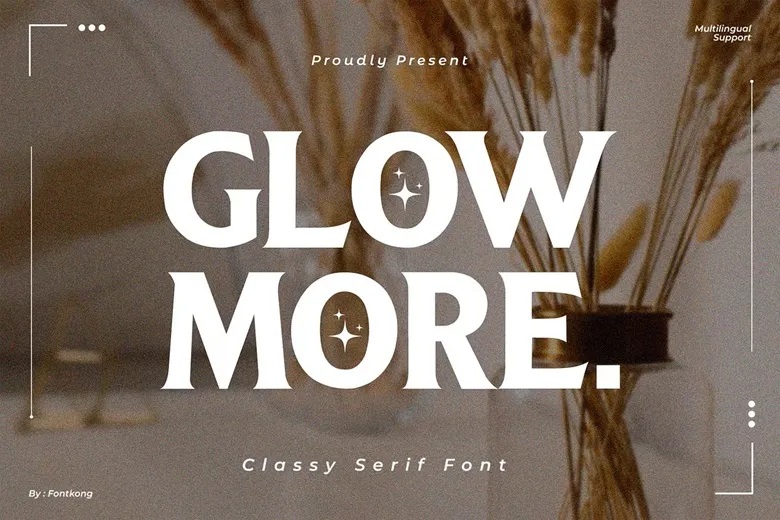
Glowmore Font
Add a touch of sophistication and charm to your designs with Glowmore, a serif font that blends classic style with a modern look. It works well for branding, invitations, editorial layouts, and luxury packaging, giving your projects an elegant and professional feel.
Glowmore Serif Font